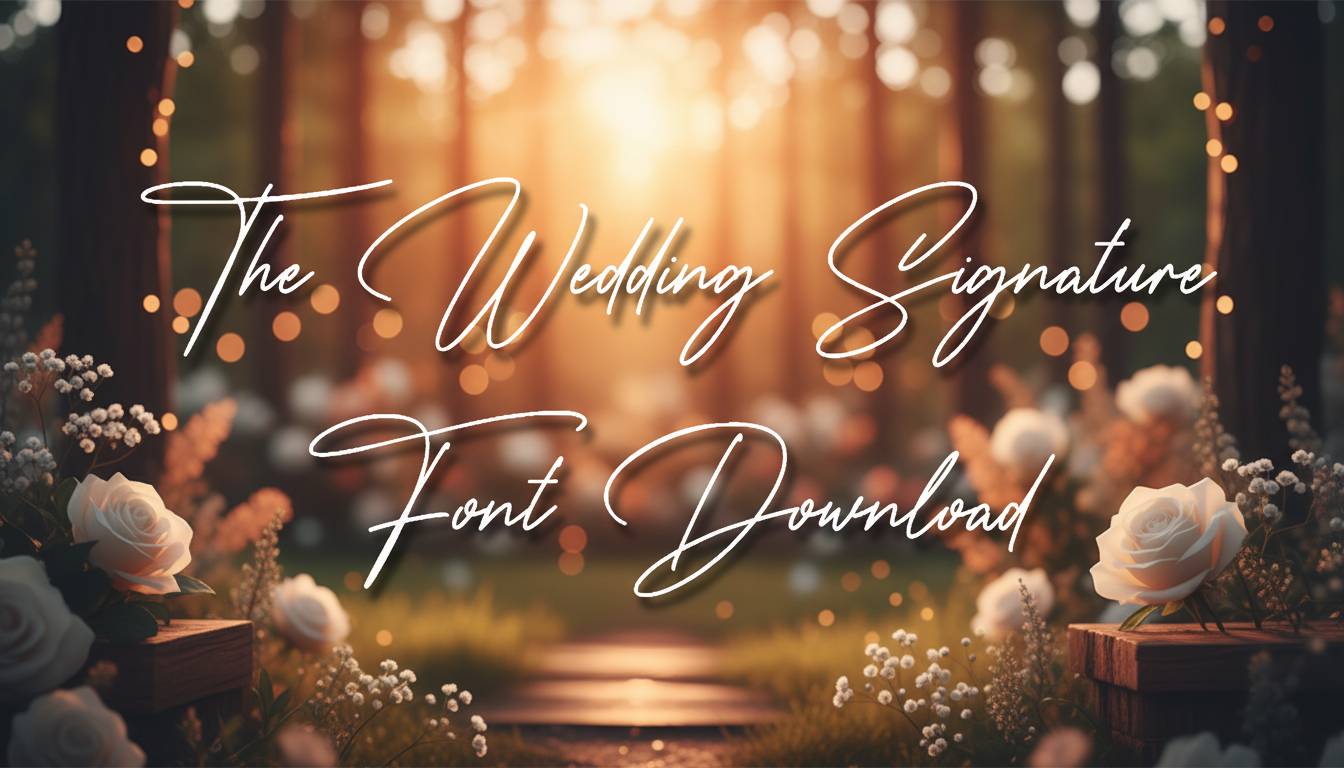
The Wedding Signature Font
The Wedding Signature is a script font that works well for wedding invitations, logos and signature-style headings. It was designed by Sigit Dwipa Raharjo and is published by Nirmana Visual.
It has a single Regular style with 329 glyphs.
Every letter from A to Z is here in both cases, and so are the digits 0–9. Common marks like &, !, ? and @ are included as well. It has the accented letters you need for Spanish, French, German, Portuguese and Italian, too.